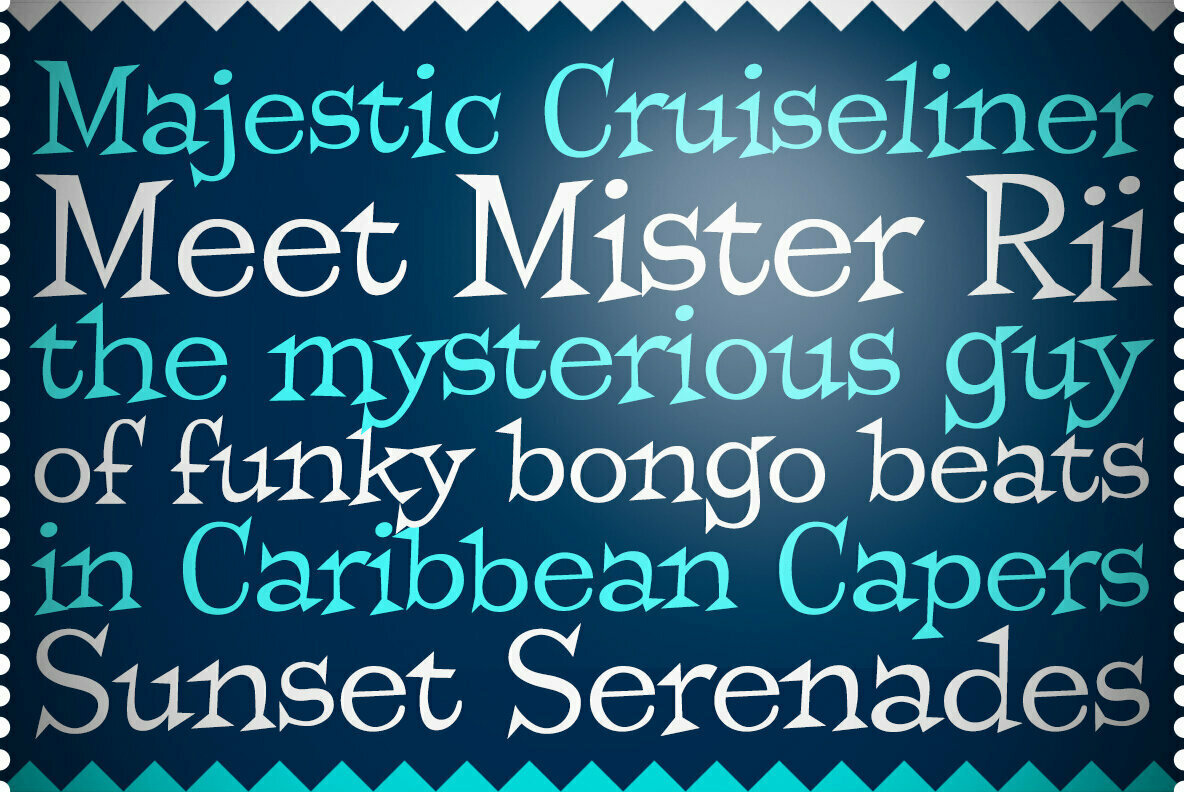
Mister Rii PB Font
Mister Rii PB Font is perfect for playful children's branding, educational toy packaging, friendly school materials, whimsical character design, cheerful party invitations, creative kids' apps, fun learning platforms, and delightful advertising campaigns. This charming typeface works wonderfully in both digital applications and print media where personality and approachable fun are essential design elements.
What makes Mister Rii PB Font so exciting is its distinctive interpretation of character-driven design through personable letterforms that seem crafted with the same individual personality and friendly charm that defines memorable characters and beloved mascots. The font features characterful letters with playful proportions, friendly curves, and distinctive details that communicate approachability, creative personality, and the engaging quality that makes characters instantly loveable and memorable. Its personable design and character-focused heritage make it ideal for brands seeking to establish friendly connections with audiences while communicating fun, creativity, and the distinctive personality that makes characters come alive in children's imagination.
The Mister Rii PB Font family includes multiple stylistic variations with different personality intensities, along with characterful alternates and playful ornamental elements. Each style maintains the typeface's friendly character while offering comprehensive character sets including playful numerals, character-focused punctuation marks, and special symbols designed to enhance creative communications and personality-driven branding efforts across various fun contexts.
This extraordinary typeface represents the perfect marriage of character design and contemporary typography for entertainment and educational industries. Whether you're developing children's brand identities, creating educational character materials, or designing playful entertainment campaigns, Mister Rii PB Font Free Download provides the distinctive personality and versatility needed to create memorable character experiences. The font's friendly appeal makes it particularly effective for children's entertainment, educational publishers, toy companies, and businesses creating characters that need to establish instant connections with young audiences through distinctive personality and approachable charm.
The carefully crafted characterful details and optimized friendly performance in Mister Rii PB Font ensure both personality authenticity and clear communication across all character applications. Its distinctive presence makes it perfect for character branding, personality marketing materials, and playful communications where its full characterful nature can create lasting connections with audiences seeking fun, creativity, and the memorable personalities that make characters truly special and unforgettable.